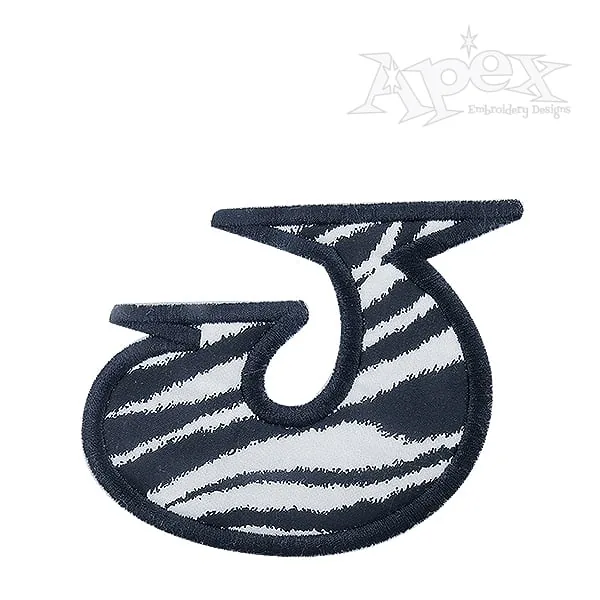
Applique Font Dee's Alphabet
Conceived for striking graphic presence and tactile warmth, Dee’s Alphabet brings an energetic, architectural charm to the embroidery hoop. When digitizing this collection, our focus was to balance punchy, readable geometry with the delightful craftsmanship of applique. Each letter provides an inviting window for showcasing favorite fabric prints, crisp seersuckers, or textured linens, framed by clean, impeccably sequenced stitch lines that anchor your fabric flawlessly. Whether crafting a single statement initial on a weekend tote or tailoring coordinated keepsakes for the nursery, Dee’s Alphabet lends a bespoke, cheerful personality to every stitch-out.
Project Ideas for Dee's Alphabet
The cheerful heft and clean borders of Dee’s Alphabet make it a versatile choice for personalized gifting and playful home accents:
- Heavyweight Canvas Totes: Center a bold 2.5-inch single initial on a weekend carryall or farmer's market tote, backing the letter with ticking stripe or gingham canvas.
- Heirloom Nursery Quilts: Spell out a child's name across the border of a hand-tied quilt or plush baby blanket for a timeless, personalized baby shower gift.
- Children’s Lounge & Playwear: Add vibrant initials to the front of cozy fleece pullovers, denim jackets, or school backpacks.
- Seasonal Decor & Holiday Stockings: Stitch contrasting velvet or buffalo plaid applique letters onto family holiday stockings and seasonal pillow covers.
- Bespoke Bath & Beach Towels: Apply oversized bold monograms to terry velour beach towels using bright, water-resistant fabrics for effortless poolside identification.
Dee’s bold letterforms carry visual weight, making strategic placement essential for balanced aesthetics:
- Canvas Tote Pockets: Center the 2.5-inch initial approximately 1.5 inches below the top rim of the exterior pocket for optimal optical balance.
- Sweatshirt & Pullover Chest: Position the 1.5-inch or 2.5-inch letterform along the center chest line, roughly 3 to 3.5 inches down from the neckline ribbing.
- Blanket Corners: Stitch a 2.5-inch initial along a 45-degree diagonal, set 3 to 4 inches inward from the corner hem to create a luxurious framed drape.
- Storage Bins & Caddies: Center the monogram vertically and horizontally across fabric organization bins to elevate playroom and closet storage.
Dee's Alphabet Craft & Letterform Details
What sets Dee's Alphabet apart is its unapologetically bold footprint, tailored specifically to celebrate the applique medium. Rather than relying on narrow, fragile columns, every letter is sculpted with generous internal space and softened corners that eliminate bunching and make trimming close to the tack-down line smooth and stress-free.
We digitized the underlay and perimeter stitching with meticulous stitch angle calibration. The preliminary runs accurately secure the underlying applique base without distorting your host fabric, while the finishing border delivers balanced density that cleanly conceals raw edges. The result is a crisp, professional edge with no frayed corners or puckering—just pure, structured stitch architecture that washes and wears beautifully across years of loving use.